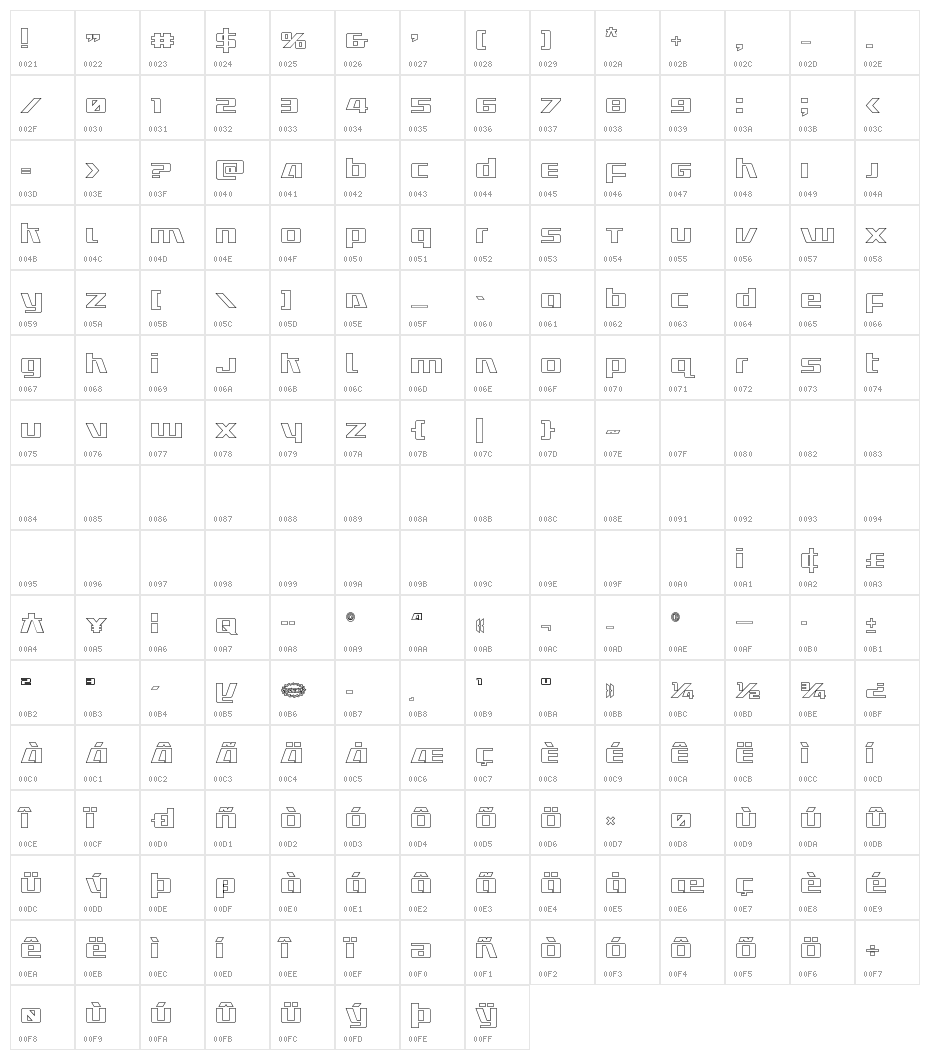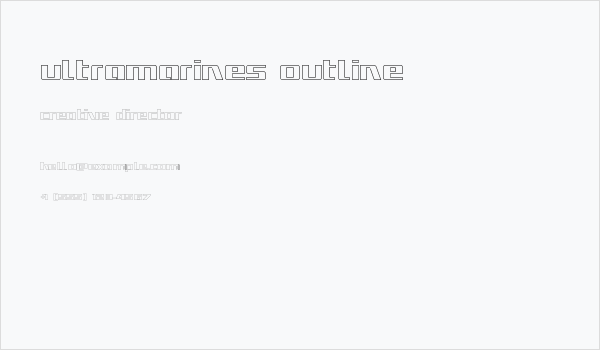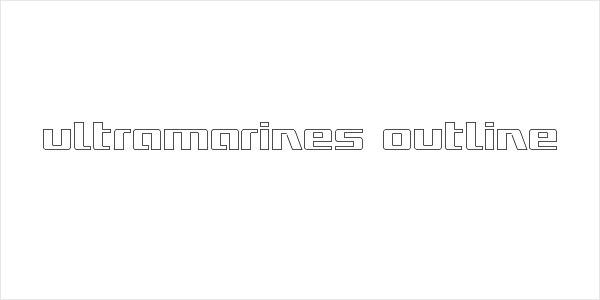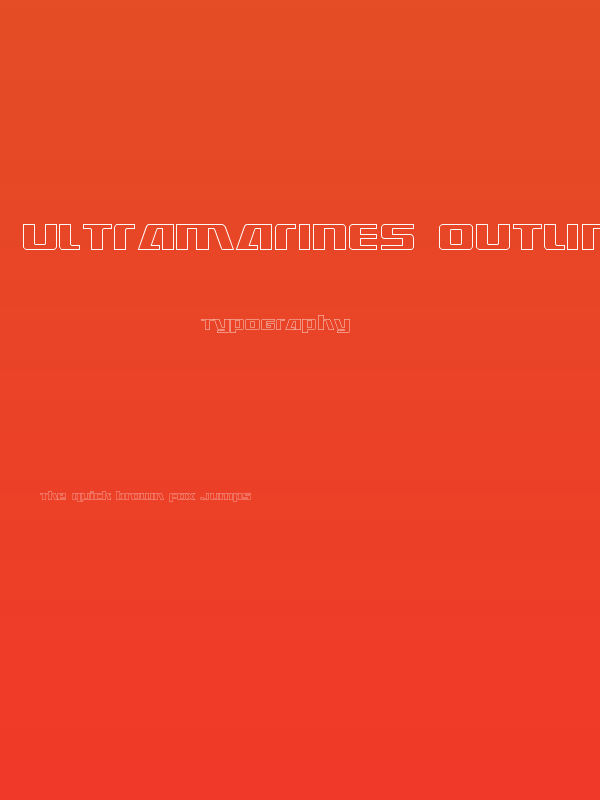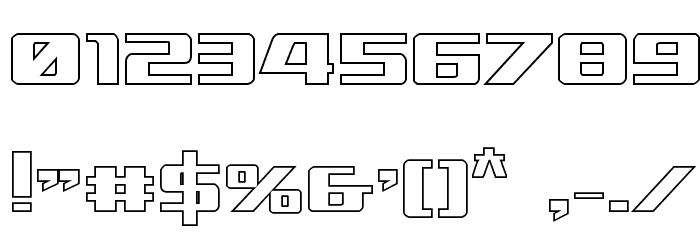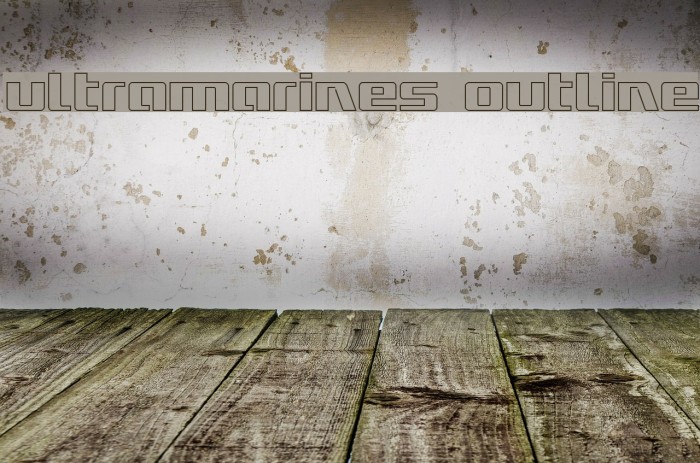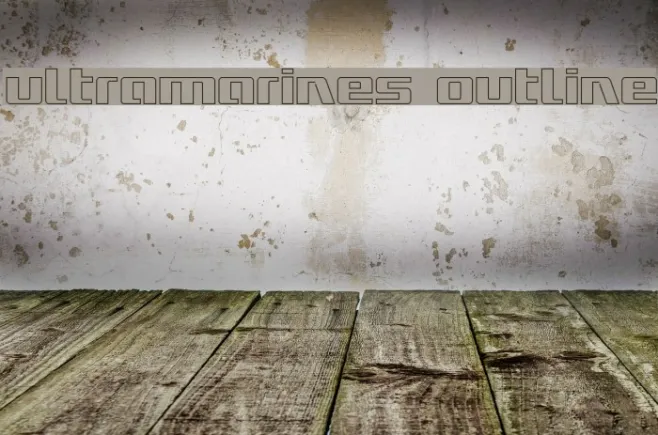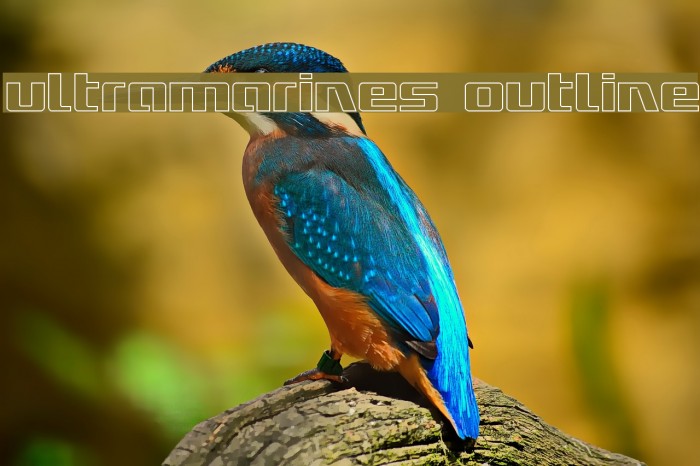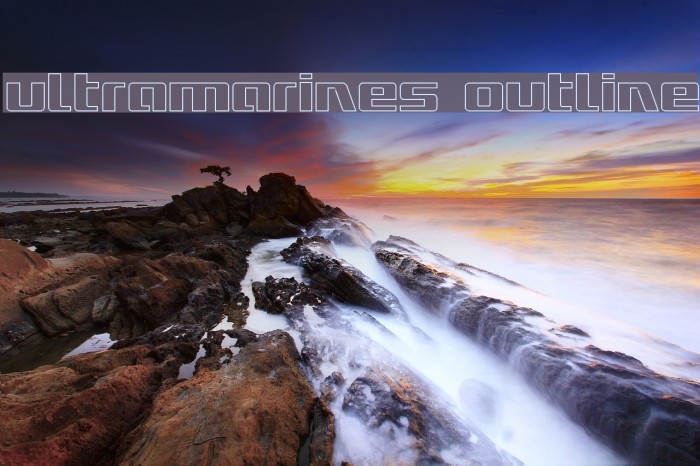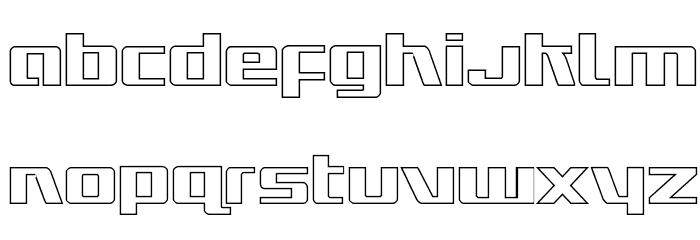
Ultramarines Outline Font
Ultramarines Outline Description
This font features a bold, geometric outline style with a futuristic and angular design. Each character is crafted with precision, showcasing sharp edges and a uniform thickness throughout. The uppercase and lowercase letters maintain a consistent height, creating a cohesive and structured appearance. Numbers and special characters follow the same design principles, ensuring a seamless integration across different text elements. The font's outline nature gives it a modern and tech-inspired look, making it stand out in digital and print media.
| Proposed Projects | Ideal for tech-themed projects, digital artwork, video game interfaces, and modern branding. |